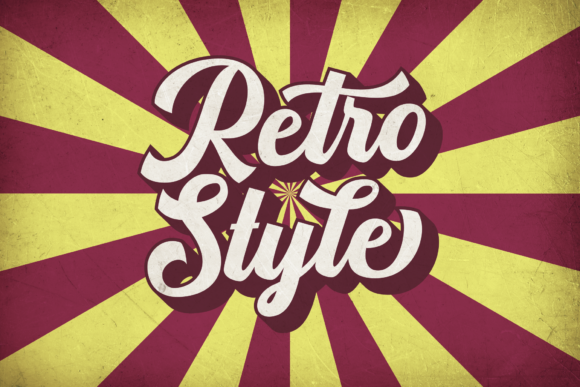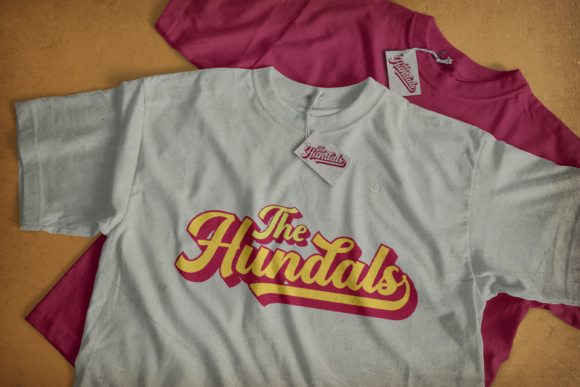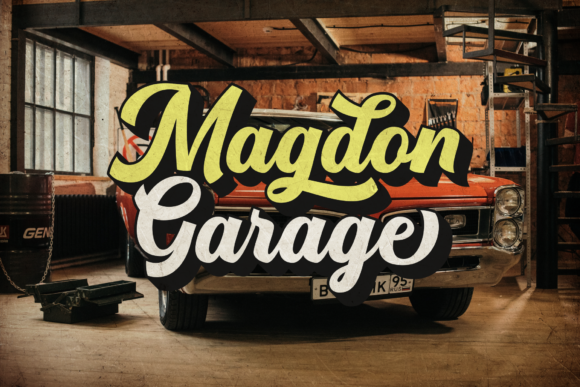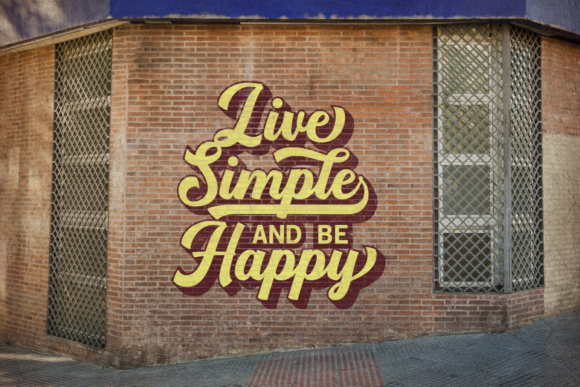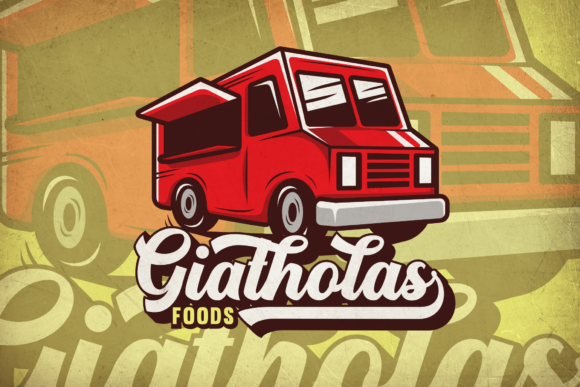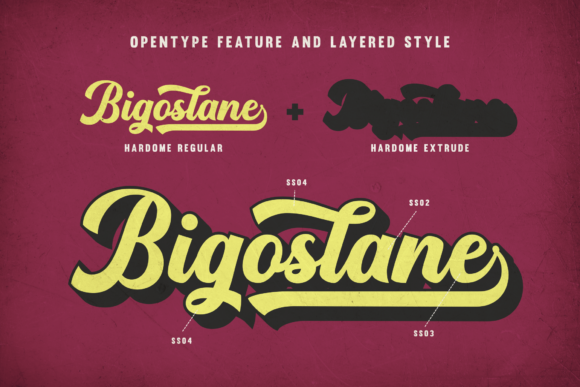
Discover the Charm of Hardome Font: A Versatile Script Font for Designers
Are you a designer or crafter looking for a font that exudes a sense of casual charm and versatility? Look no further than Hardome Font. This great script font has been making waves in the design community, and for good reason. Its down-to-earth feel, readability, and adaptability make it an excellent choice for a wide range of design projects.
The Characteristics of Hardome Font
So, what makes Hardome Font so special? For starters, its casual charm is unmistakable. The font’s script style is relaxed and approachable, making it perfect for designs that require a friendly, laid-back vibe. At the same time, Hardome is incredibly readable, even at smaller sizes. This makes it an excellent choice for body text, as well as headlines and titles.
One of the standout features of Hardome Font is its versatility. Whether you’re working on a busy background or using it as a standalone headline, this font is sure to shine. Its unique character set and flowing script style make it adaptable to a wide range of design contexts. From rustic and earthy to modern and sleek, Hardome Font can handle it all.
Hardome Font is a dream come true for designers and crafters. Whether you’re working on a branding project, creating social media graphics, or designing packaging, this font is sure to become a go-to in your toolkit. Its flexibility and charm make it an excellent choice for a wide range of applications, from digital designs to print materials.
Using Hardome Font in Your Designs
So, how can you make the most of Hardome Font in your designs? Here are a few tips to get you started:
- Pair it with bold colors: Hardome Font looks amazing when paired with bold, bright colors. Try using it with a vibrant background or contrasting color to really make it pop.
- Mix it with textures: The casual charm of Hardome Font makes it a great match for textured backgrounds. Try combining it with a natural texture or pattern to add depth and interest to your design.
- Use it as a headline: Hardome Font is perfect for headlines and titles. Its flowing script style and unique character set make it a great choice for grabbing attention and adding visual interest to your design.
In conclusion, Hardome Font is a versatile and charming script font that’s perfect for designers and crafters. Its casual charm, readability, and adaptability make it an excellent choice for a wide range of design projects. Whether you’re working on a branding project, creating social media graphics, or designing packaging, Hardome Font is sure to become a favorite in your toolkit. So why not give it a try and see the difference it can make in your designs?